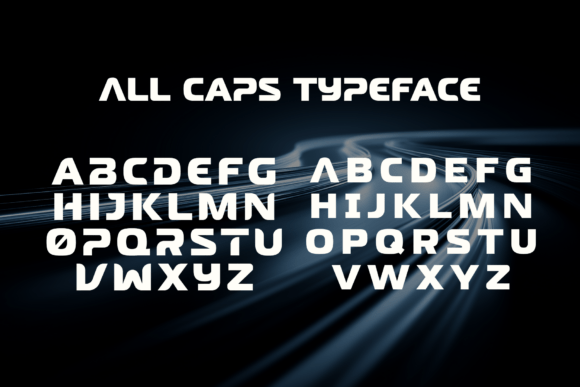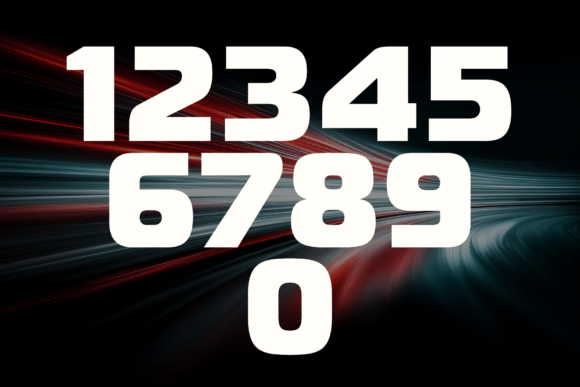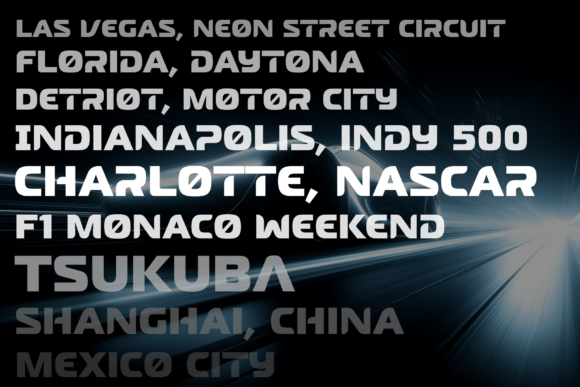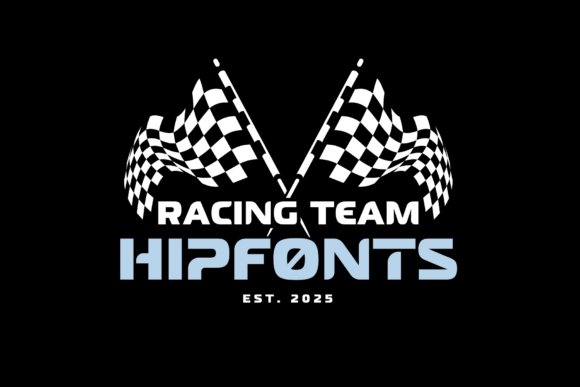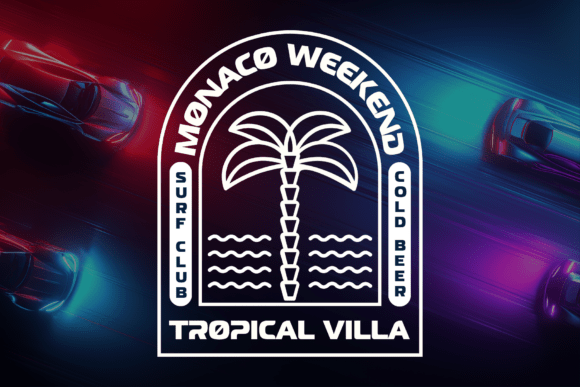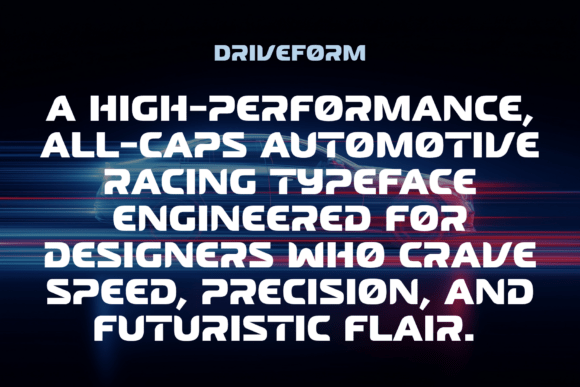
Unleash Your Design’s Full Potential with Drive Form Font
Are you a designer looking for a font that embodies the thrill of speed, precision, and futuristic style? Look no further than Drive Form, a high-performance, all-caps automotive racing typeface engineered to satisfy your cravings for sleek, minimal, and modern typography. With its subtle dash of sci-fi energy, Drive Form captures the essence of drift culture and motorsport adrenaline, making it perfect for designers who want to inject their work with a sense of dynamism and energy.
The Design Philosophy Behind Drive Form
Every letter in Drive Form is meticulously crafted with aerodynamic intent, resulting in a font that exudes speed, precision, and agility. The design team behind Drive Form drew inspiration from the world of high-octane racing, incorporating sharp angles, smooth curves, and dynamic proportions that bring instant horsepower to any design. Whether you’re working on a project that requires a bold, attention-grabbing font or a more subtle, sophisticated look, Drive Form has got you covered.
Flexible Typography Options
One of the standout features of Drive Form is its flexible typography options. The font comes in both uppercase and lowercase variants, each offering unique shapes that allow you to create striking, custom-looking typography with ease. This means that you can use Drive Form to create a wide range of designs, from bold and dramatic to sleek and minimalist. Whether you’re designing a logo, a brochure, or a website, Drive Form provides the perfect combination of style and versatility.
Drive Form is a font that’s specifically designed with designers and crafters in mind. Its sleek, modern aesthetic makes it perfect for a wide range of applications, from automotive and sports-related designs to futuristic and sci-fi projects. The font’s high-performance capabilities also make it ideal for use in digital media, such as video games, mobile apps, and websites. Whether you’re a professional designer or a crafty DIY enthusiast, Drive Form provides the perfect tool to take your work to the next level.
Key Features of Drive Form
- High-performance, all-caps automotive racing typeface: Drive Form is engineered for designers who crave speed, precision, and futuristic flair.
- Sleek, minimal, and modern aesthetic: With a subtle dash of sci-fi energy, Drive Form captures the essence of drift culture and motorsport adrenaline.
- Flexible typography options: Uppercase and lowercase variants offer unique shapes for creating striking, custom-looking typography.
- Aerodynamic design: Every letter is crafted with aerodynamic intent, resulting in a font that’s perfect for designs that require a sense of speed and dynamism.
- Perfect for designers and crafters: Drive Form is ideal for a wide range of applications, from automotive and sports-related designs to futuristic and sci-fi projects.
How to Use Drive Form in Your Designs
Tips and Tricks for Getting the Most Out of Drive Form
To get the most out of Drive Form, try experimenting with different font sizes, colors, and styles. You can also combine Drive Form with other fonts to create unique and interesting typography effects. Here are a few tips and tricks to get you started:
- Use Drive Form as a headline font: Its bold, attention-grabbing aesthetic makes it perfect for headlines and titles.
- Experiment with different font colors: Drive Form looks great in a wide range of colors, from bold and bright to subtle and muted.
- Combine Drive Form with other fonts: Try pairing Drive Form with a sans-serif font for a bold and modern look.
Drive Form is a high-performance, all-caps automotive racing typeface that’s perfect for designers who crave speed, precision, and futuristic flair. With its sleek, minimal, and modern aesthetic, flexible typography options, and aerodynamic design, Drive Form provides the perfect tool for creating bold, attention-grabbing designs. Whether you’re a professional designer or a crafty DIY enthusiast, Drive Form is the perfect choice for any project that requires a sense of speed, dynamism, and energy.